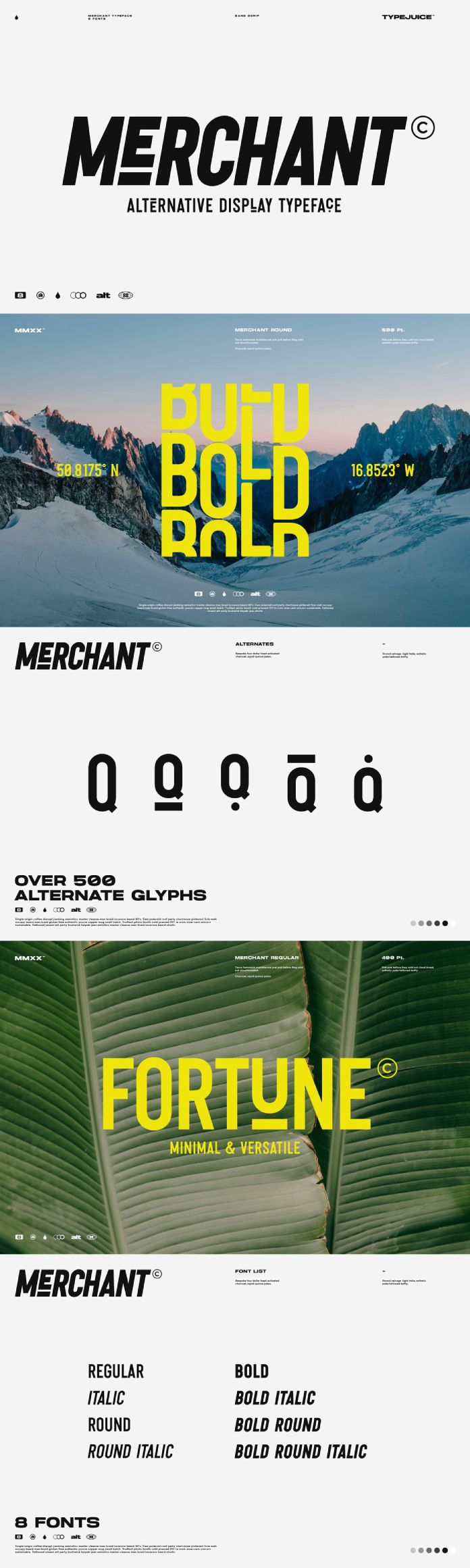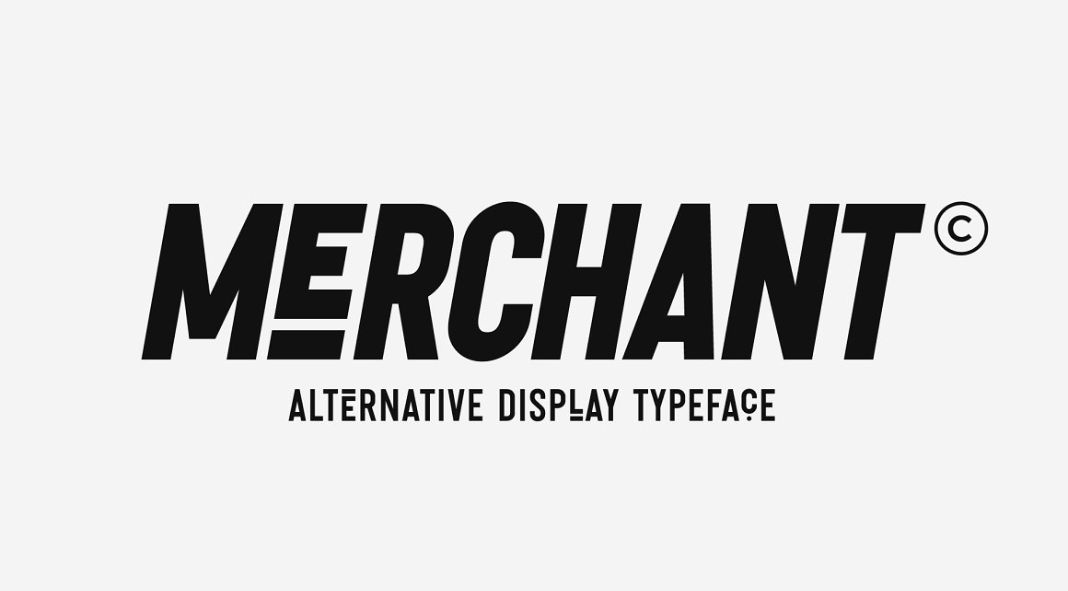
Say hello to Merchant, a dynamic and versatile condensed sans-serif typeface.
Typography is an essential element of design that can greatly influence the overall aesthetic and impact of any creative project. When it comes to conveying a modern and professional vibe, a well-chosen sans-serif typeface often does the trick. In this post, we will explore the remarkable qualities of Merchant, a condensed sans-serif display typeface that offers designers a wide range of styles, weights, and customization options. With its extensive library of over 500 stylized alternate glyphs, Merchant empowers designers to exercise their creative control and add a unique touch to their work.
- Distinctive Condensed Form
Merchant, with its condensed structure, stands out among other typefaces due to its sleek and compact design. The condensed nature of the letters allows for efficient use of space, making it a perfect choice for headlines, titles, logos, and other attention-grabbing elements in design projects. Whether you’re designing for print or digital platforms, Merchant’s condensed form ensures that your text takes up minimal space while maintaining readability.
- Variety of Styles and Weights
One of the strengths of Merchant lies in its versatility. The typeface consists of eight distinct fonts, each offering a unique style and weight. Ranging from ultra-light to bold, these variations enable designers to create visual hierarchy, emphasize important elements, or experiment with different design concepts. Whether you’re aiming for a subtle and elegant look or a bold and impactful statement, Merchant has the right weight to convey your message effectively.
- Extensive Glyph Library
Merchant takes customization to a whole new level with its extensive glyph library. With over 500 stylized alternate glyphs, including ligatures, swashes, and decorative elements, designers can unleash their creativity and add personal touches to their typography. These alternate glyphs enable endless possibilities for tailoring the typeface to suit specific design needs or to infuse a unique and memorable flavor into branding, packaging, or editorial projects.
- Seamless Integration
- Readability and Legibility
While creativity and customization are paramount, readability and legibility should never be compromised. Merchant strikes a perfect balance between a contemporary aesthetic and clear communication. The carefully crafted letterforms and generous spacing ensure that your message remains easily readable across different sizes and mediums, from large-scale signage to small-scale digital interfaces.
To sum it up, Merchant is a condensed sans-serif display typeface that encapsulates style, versatility, and customization. With its range of styles and weights, coupled with an extensive glyph library, Merchant offers designers the freedom to explore and create unique typographic compositions. Whether you’re designing for branding, editorial, or web, Merchant’s sleek and dynamic forms will undoubtedly make a lasting impression. So, unleash your creativity and elevate your designs with Merchant’s exceptional capabilities and bring your typography to new heights.